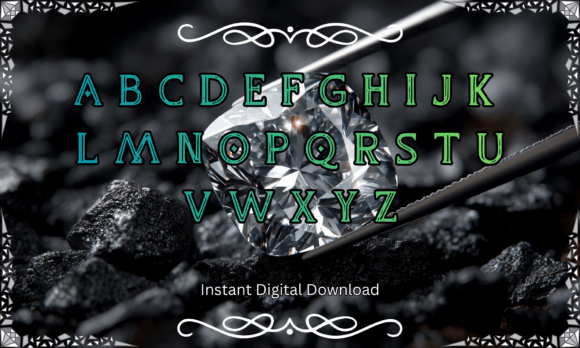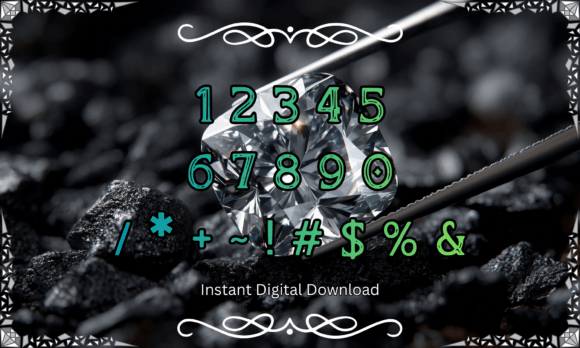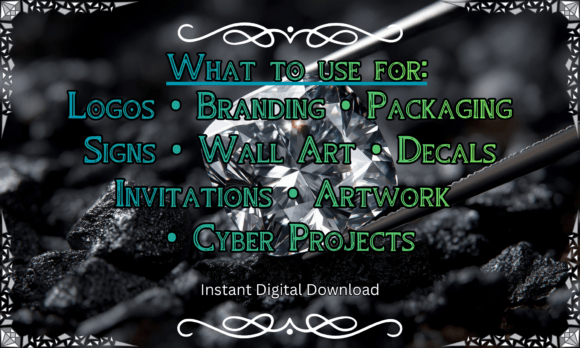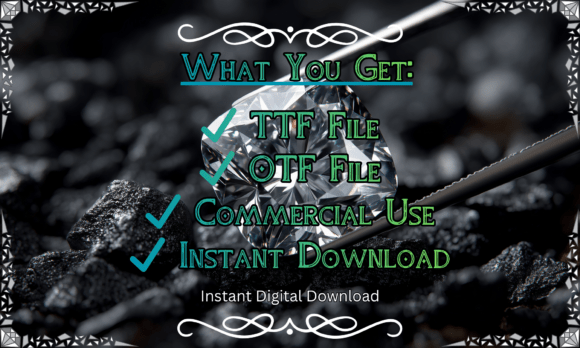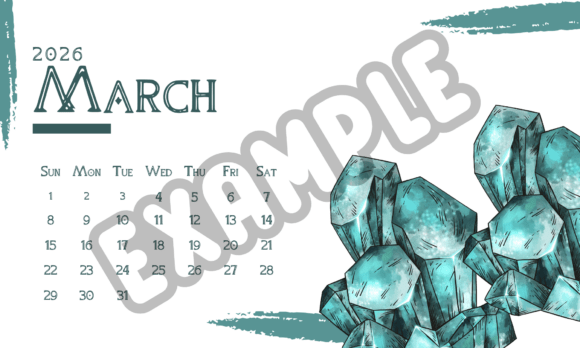
Add Brilliance and Sophistication to Your Designs with Diamond Faceted 💎
Are you looking for a font that can elevate your designs to new heights of luxury and sophistication? Look no further than Diamond Faceted, a stunning font inspired by the sharp elegance and reflective beauty of cut diamonds. With its clean geometric shapes and refined luxury feel, this font is perfect for projects that need a modern, high-end, and eye-catching aesthetic.
What Makes Diamond Faceted Special?
Diamond Faceted is more than just a font – it’s a design statement. Its geometric and faceted style gives it a sleek, futuristic edge that’s perfect for designers and crafters who want to create something truly unique. Whether you’re designing for digital or print, this font delivers a polished, premium look every time.
Diamond Faceted is versatile and can be used for a wide range of projects, including:
- Logos & Branding: Create a lasting impression with a bold and elegant logo that showcases your brand’s personality.
- Packaging Design: Elevate your product packaging with a sophisticated and modern design that stands out on store shelves.
- Wall Art & Prints: Add a touch of luxury to your wall art and prints with a font that’s both stylish and refined.
- Invitations & Events: Make your invitations and event materials shine with a font that’s both elegant and sophisticated.
- Stickers & Decals: Create eye-catching stickers and decals that showcase your brand’s personality and style.
- Digital Artwork: Add a touch of modern luxury to your digital artwork with a font that’s both sleek and futuristic.
- Cyber / Modern Projects: Create a bold and futuristic design that’s perfect for cyber and modern projects.
- Uppercase Letters: A set of uppercase letters that are perfect for headlines and titles.
- Numbers & Symbols: A set of numbers and symbols that are perfect for adding a touch of elegance to your designs.
Why You’ll Love Diamond Faceted
Diamond Faceted is designed to feel:
- Bold: Make a statement with a font that’s both confident and eye-catching.
- Elegant: Add a touch of sophistication to your designs with a font that’s both refined and luxurious.
- High-end: Give your designs a premium look that’s perfect for luxury brands and high-end products.
With Diamond Faceted, you’ll be able to create designs that look like they belong on the cover of a high-end fashion magazine or on the packaging of a luxury product. The font’s sleek and futuristic edge makes it perfect for modern brands and designers who want to create something truly unique.
Tips for Using Diamond Faceted
Here are a few tips for getting the most out of Diamond Faceted:
- Use it sparingly: Because Diamond Faceted is a bold font, it’s best to use it sparingly to create a lasting impression.
- Pair it with a neutral font: Pair Diamond Faceted with a neutral font to create a beautiful contrast that adds depth to your design.
- Experiment with colors: Diamond Faceted looks great in a variety of colors, so don’t be afraid to experiment and find the perfect hue for your design.